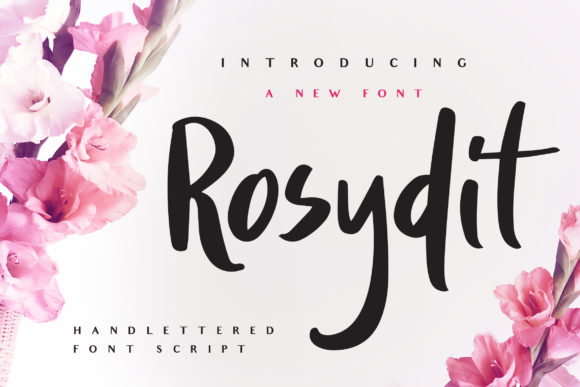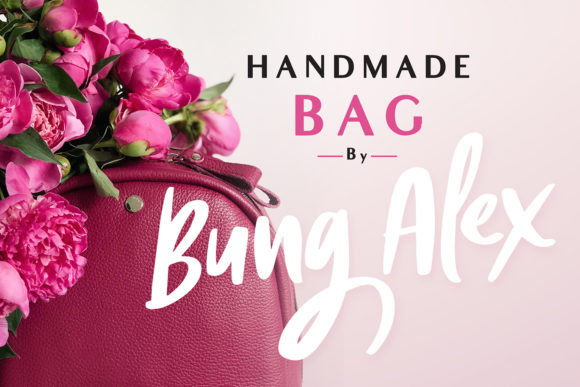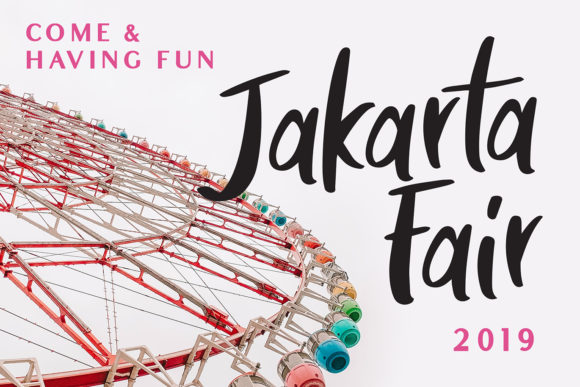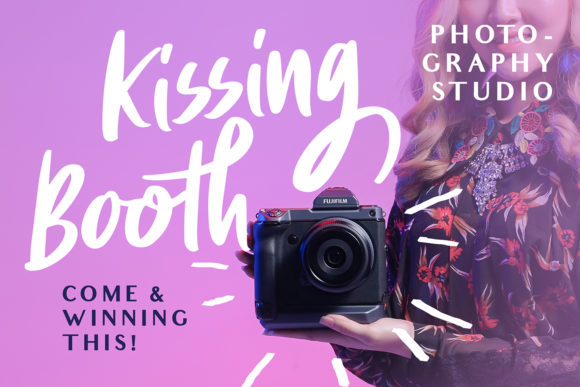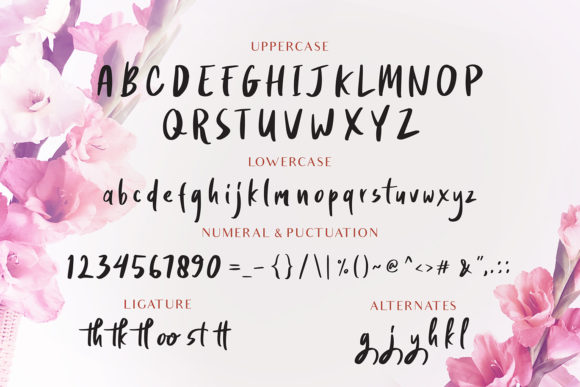
HomeScript FontsRosydit Font Script Fonts Rosydit Font FacebookXPinterestWhatsApp Rosydit Font Poster 2 Rosydit Font Poster 3 Rosydit Font Poster 4 Rosydit Font Poster 5 About Rosydit Font Rosydit is a sweet and fun script with an incredible feel. Use it to turn any design project into a piece of art! DOWNLOAD ON CREATIVE FABRICAThis font is sold and delivered by Creative Fabrica. Font Canyon may earn a commission if you buy through this link. People also explored Hammerte Font Cold Brew Alone Font Saluyu Font Cute and Cake Font Milgun Font Santtiago Raymond Font Epicurus Strange Planet 387 0 TagsRosydit Font Previous articleMurchison FontNext articleQuenty Font LEAVE A REPLY Cancel reply Comment: Please enter your comment! Name:* Please enter your name here Email:* You have entered an incorrect email address! Please enter your email address here Website: Save my name, email, and website in this browser for the next time I comment. Personal Use Free Splatter Splash Personal Use Free Read more about this font Airmole Personal Use Free Read more about this font Foolish Hand Personal Use Free Read more about this font Morning Miow Personal Use Free Read more about this font BLOG Free vs Paid Fonts: Why Investing in Premium Fonts Is Worth It Free vs Paid Fonts: Why Premium Fonts Are Worth It in 2025 The debate of free vs paid fonts continues in the design world. While... Modern Sans-Serif Fonts That Brands Love in 2025 Exploring Font Trends Best Fonts for YouTube Videos: Make Your Thumbnails Stand Out